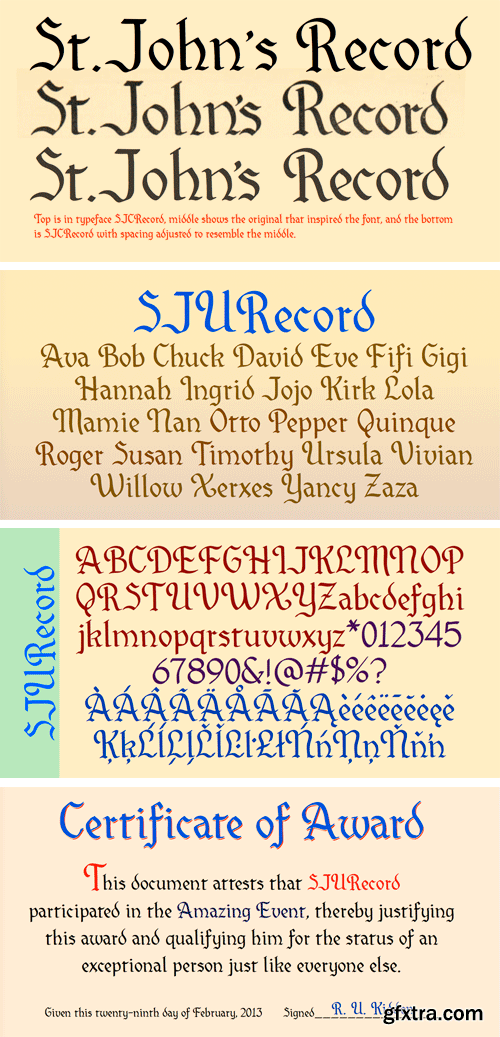
SJ C记录字体
The inspiration for SJURecord was calligraphic lettering used for the title of a student newspaper, St. John’s Record, during the late 1920s and early 1930s. The three upper-case and nine lower-case letters were considerably different from any calligraphic lettering I had developed, so I thought creating a complete typeface around these twelve letters would be an interesting challenge. SJCRecord has only one weight but has a large array of accented characters.